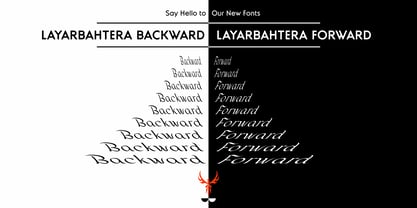
Layar Bahtera
by LayarBahtera
The Layar Bahtera Font Family was designed by Mohd Razali Mohamad Raub and published by LayarBahtera. Layar Bahtera contains 2 styles and family package options.
Weird and strange font
Designers: Mohd Razali Mohamad Raub
Publisher: LayarBahtera
Foundry: LayarBahtera